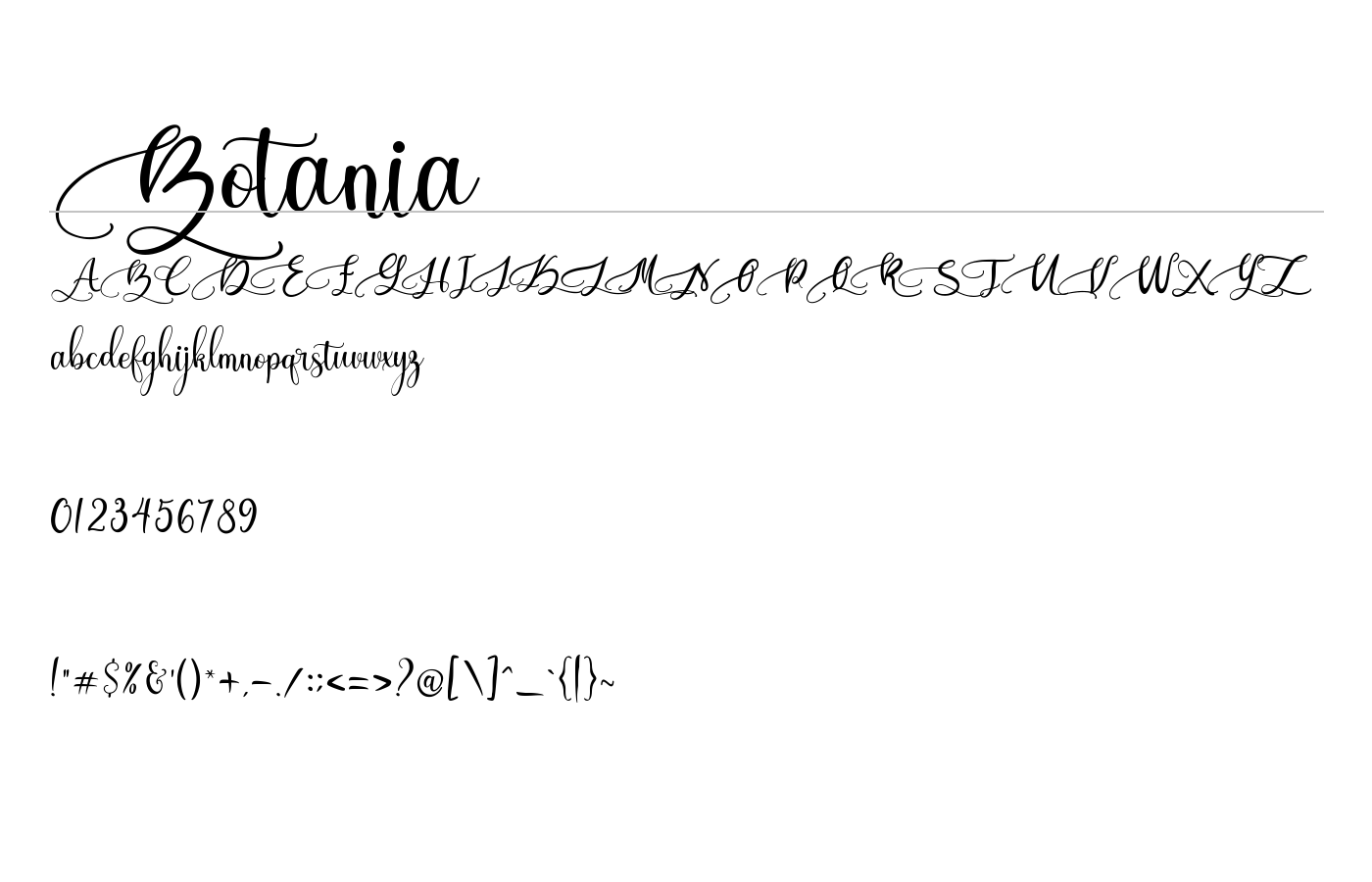
Botania is an elegant handwritten script font featuring graceful, flowing letterforms with high contrast stroke weights that create a delicate and refined look. Its cursive style, with ornate uppercase letters and smooth lowercase connections, makes it perfect for wedding invitations, branding, and any design that seeks a feminine and sophisticated touch. This font works wonderfully in decorative headlines and logos where a romantic, stylish atmosphere is desired.
Botania Font
About Botania Font